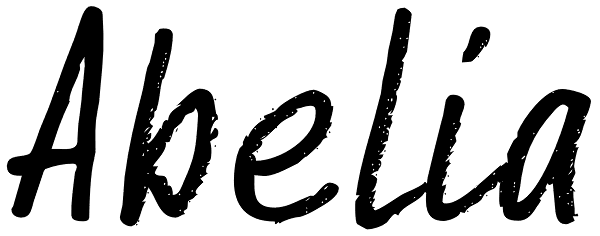
Abelia
Abelia is a rough(ish), cursive, handwritten font. It was made with an almost dried up felt tip pen, so as to create some roughness in the edges. It comes with a generous amount of diacritics. For those who are just dying to know: Abelia is a...